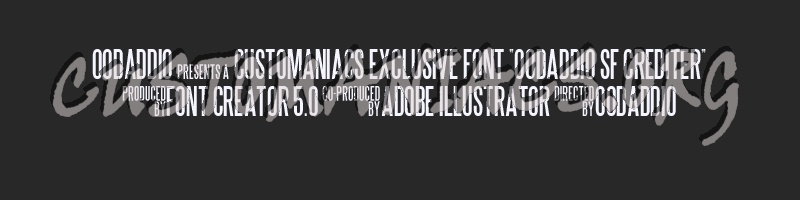
00Daddio SF Crediter
Well I got a couple of request for a credit font based on the Steel Fish font so here it is I hope you enjoy it and as before, "THIS FONT IS EXCLUSIVE TO CUSTOMANIACS MEMBERS PLEASE DO NOT REDISTRIBUTE THIS FILE."
00Daddio SF Crediter